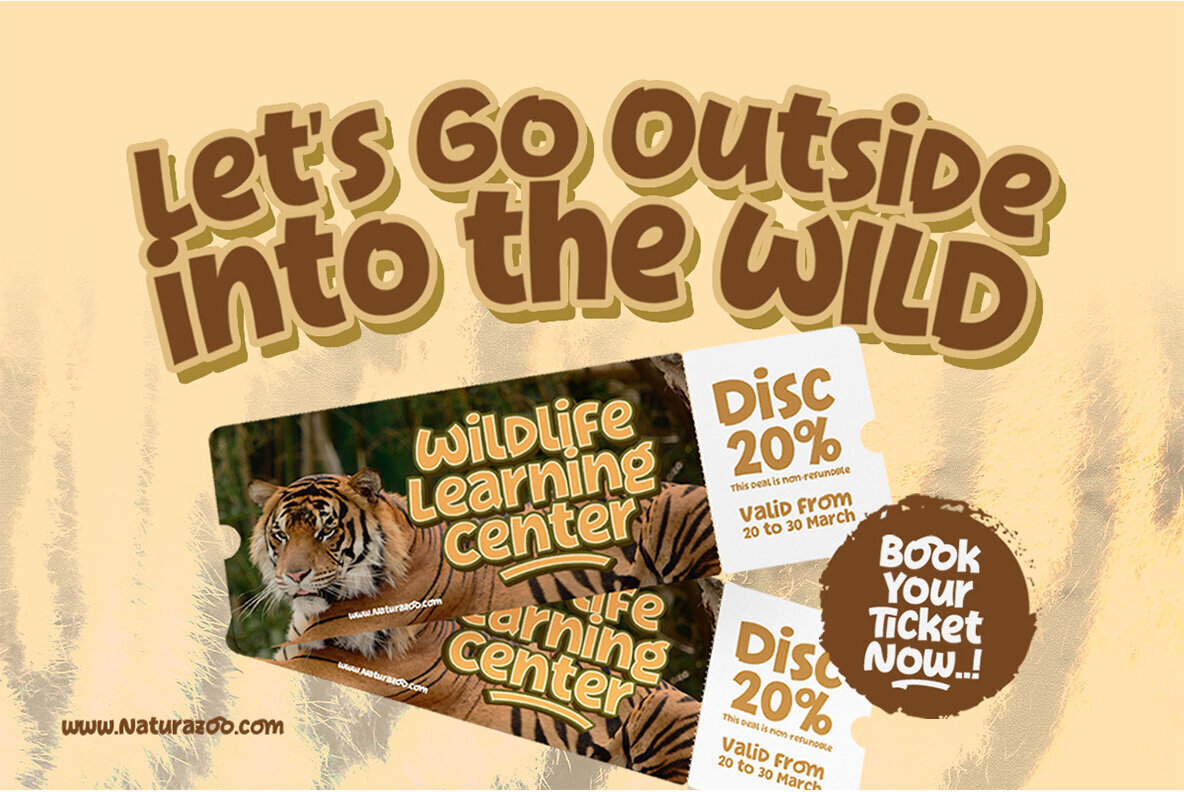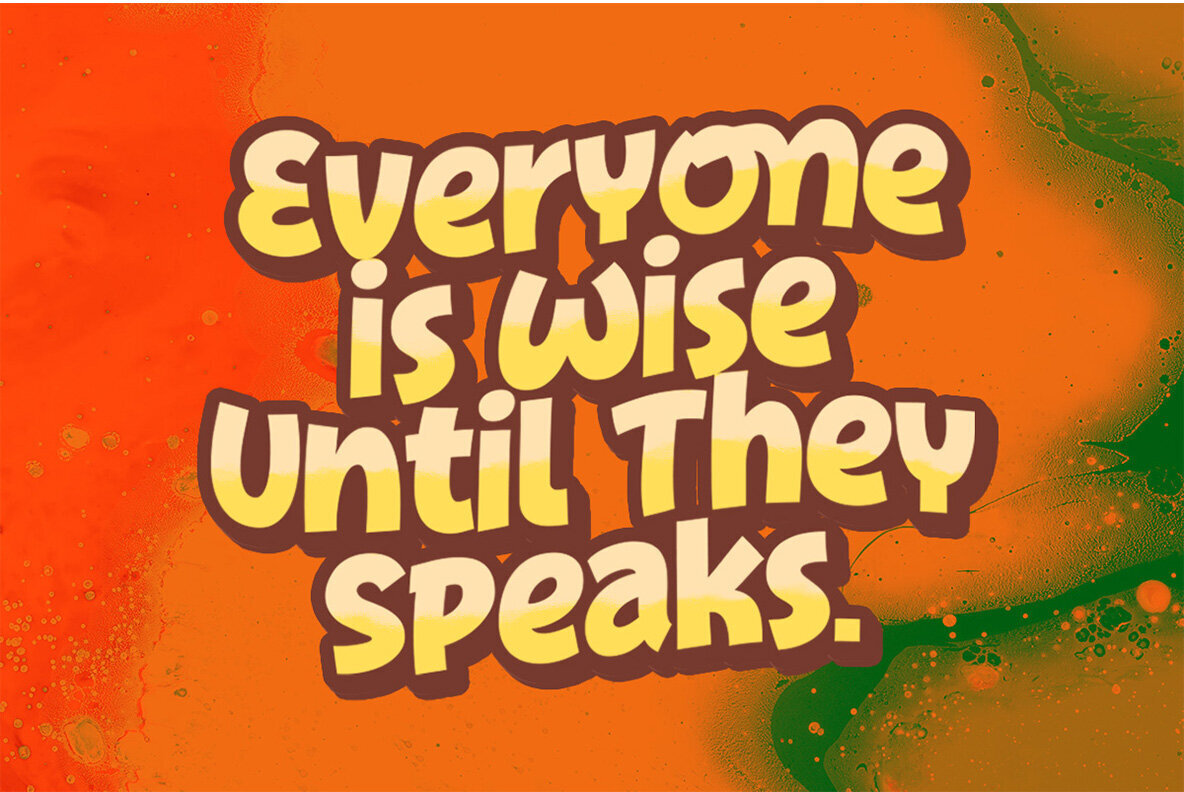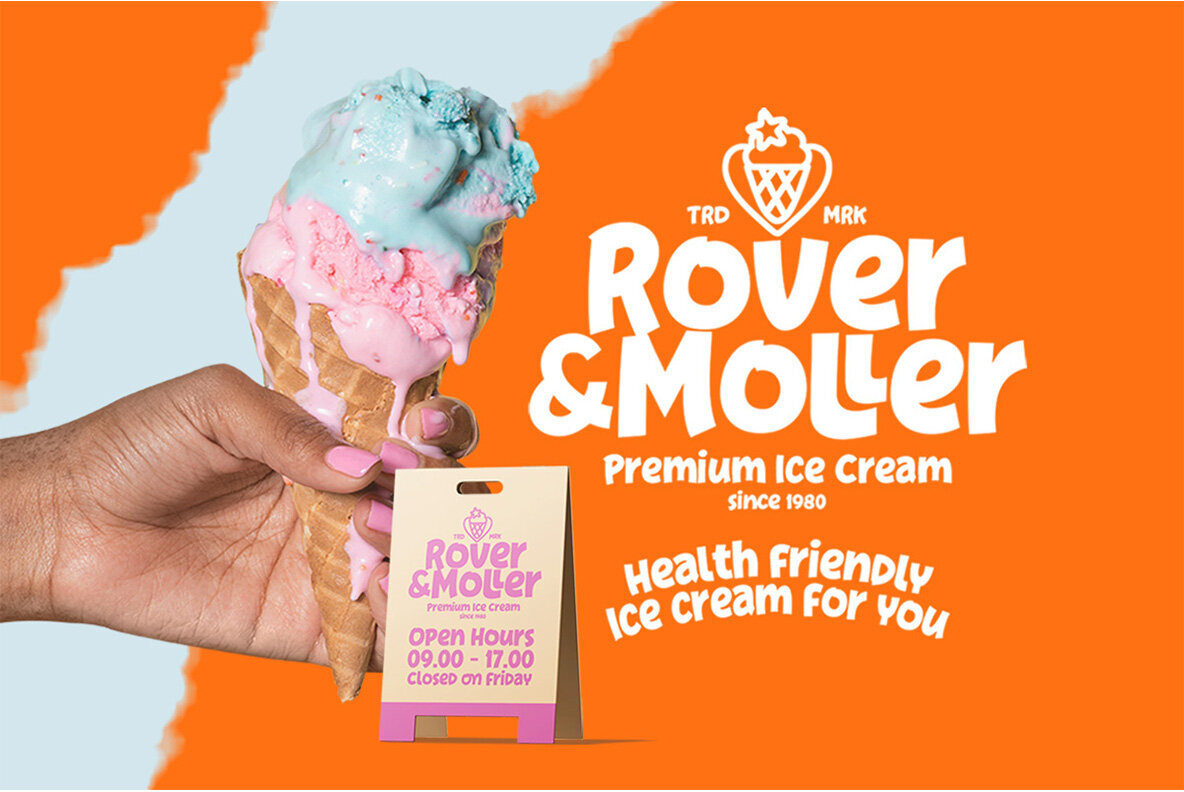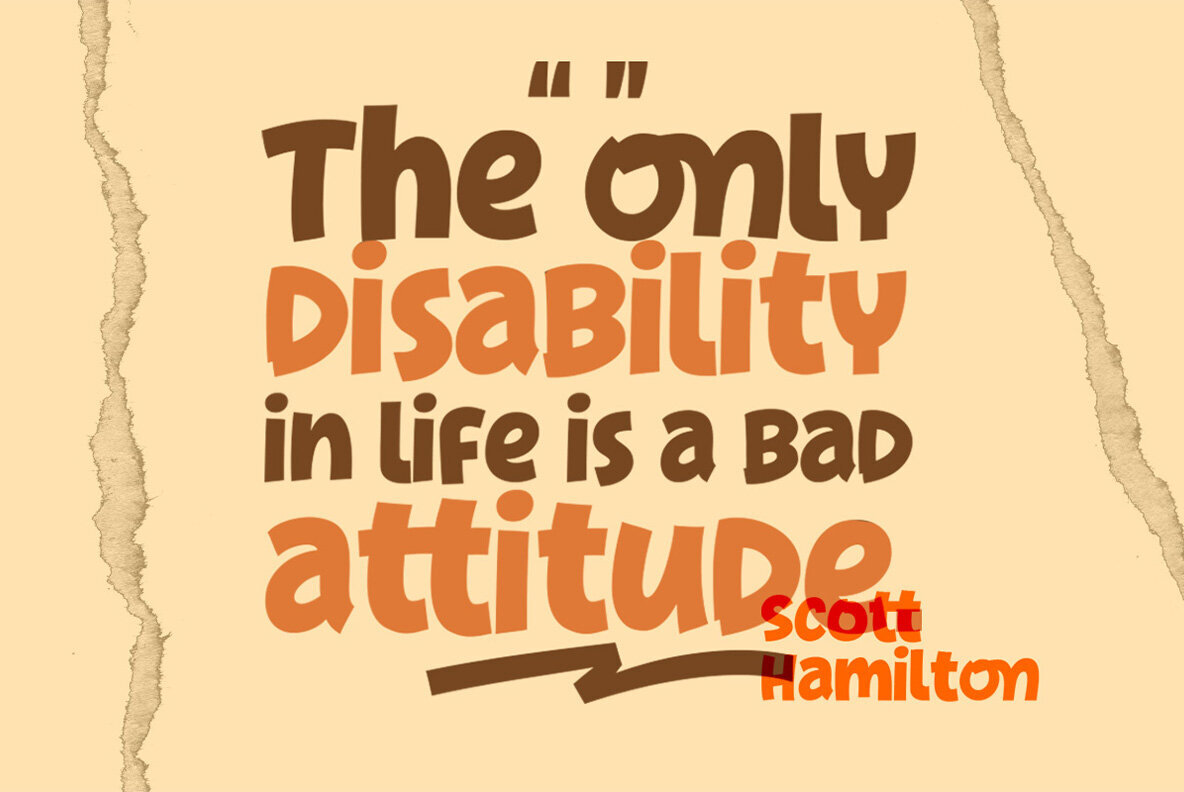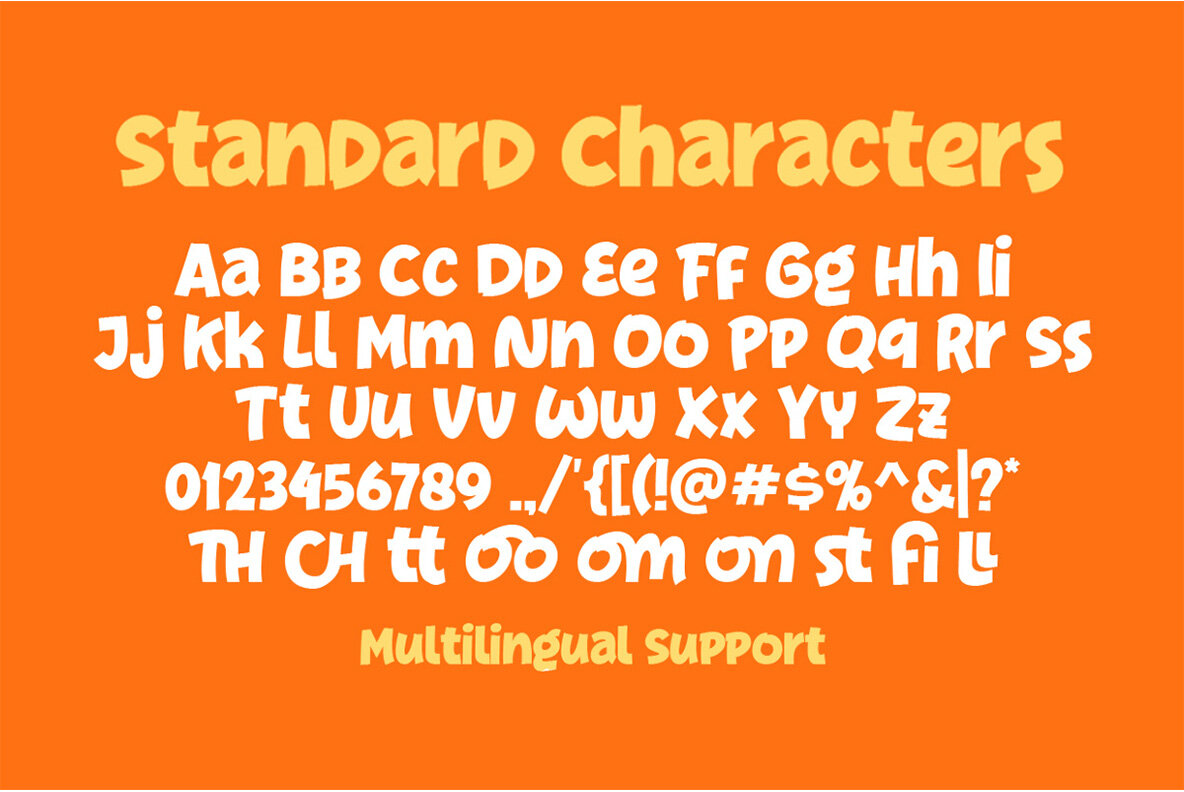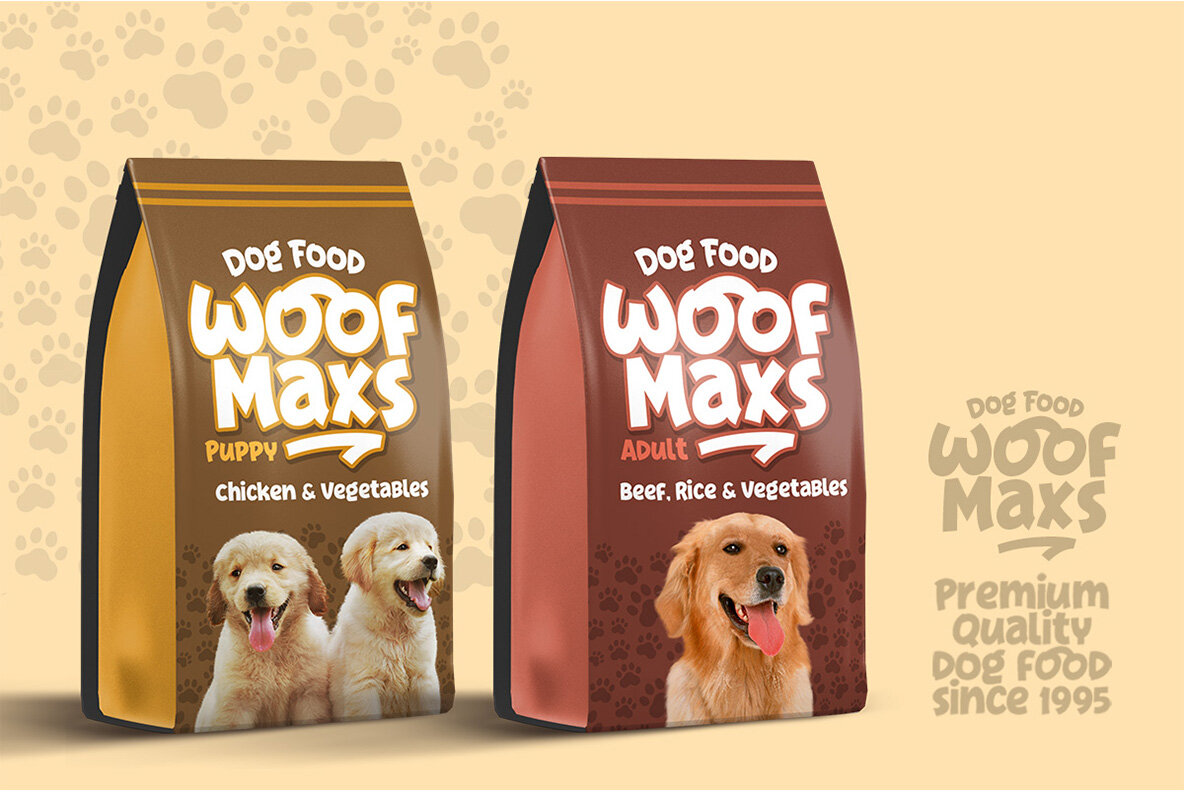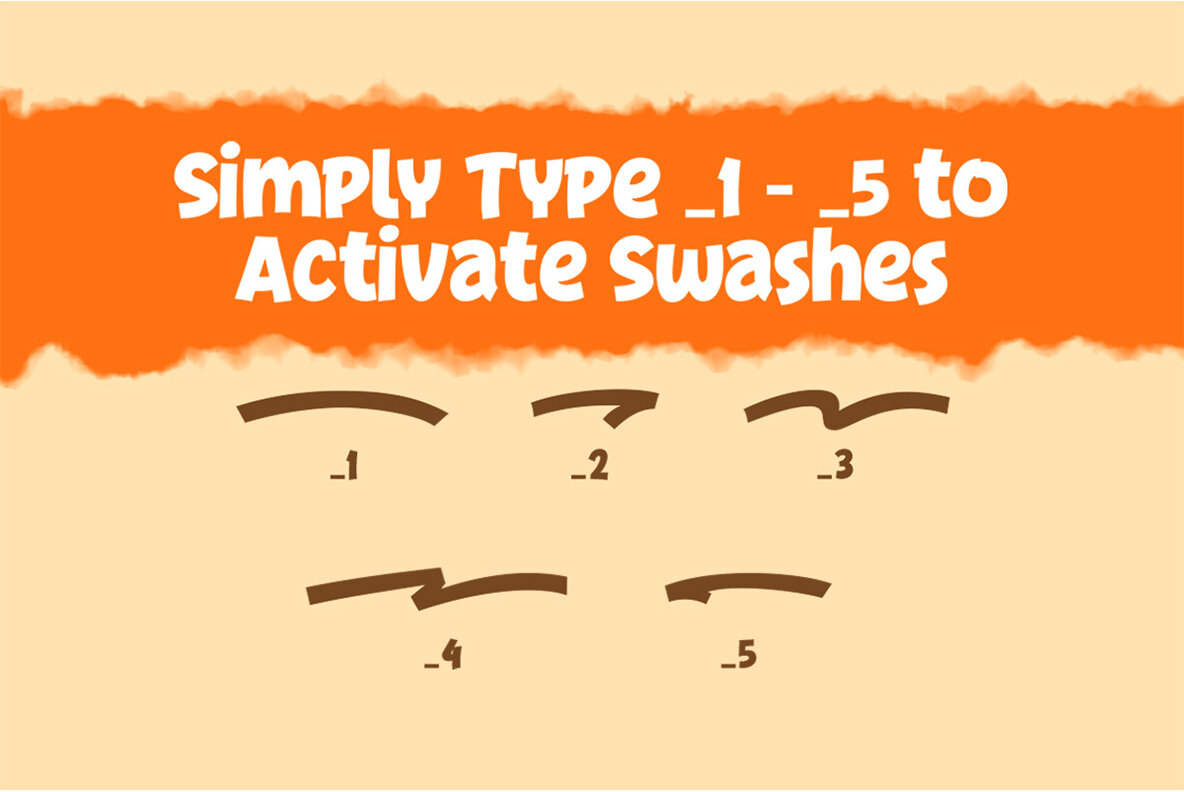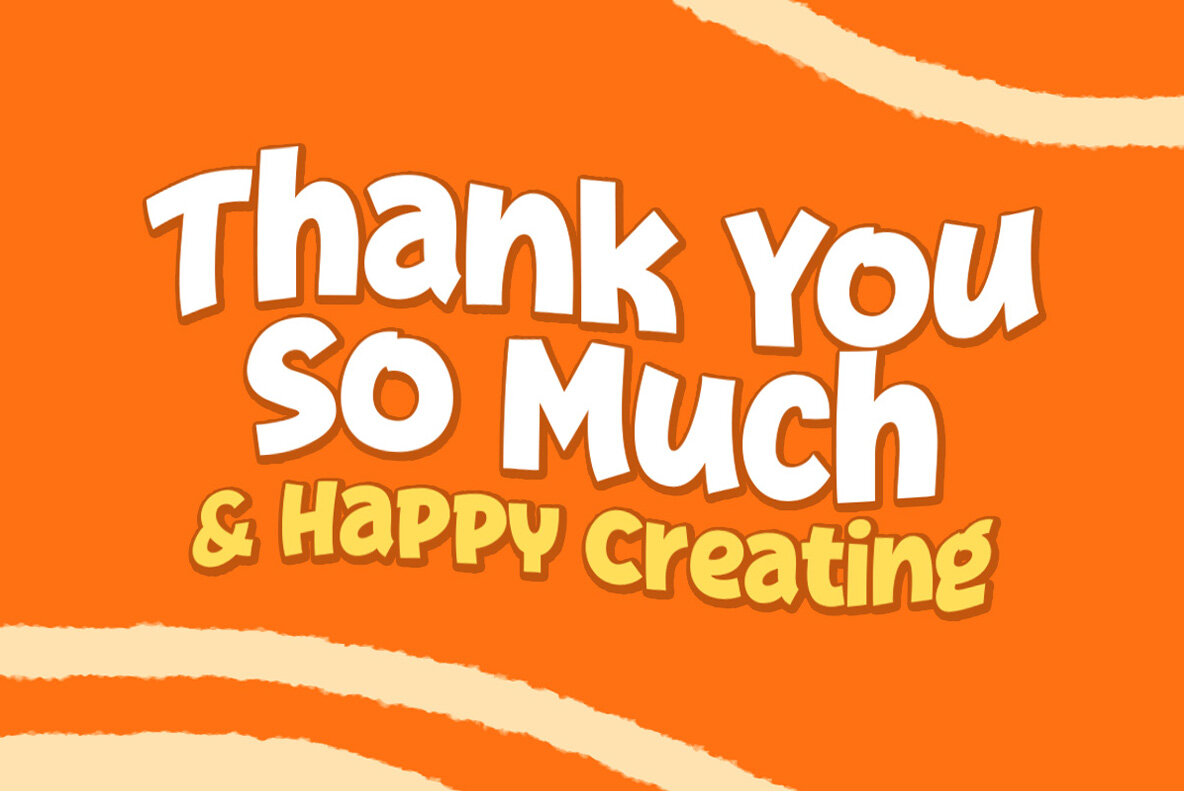
Silver Broom Font
Silver Broom Regular
Introducing a whimsical font that captures the essence of youthful imagination—Silver Broom. Designed by Letterhend Studio, this display font exudes a playful charm, making it ideal for projects centered around storytelling, children's themes, and any design that calls for a lively touch. Beyond its childlike appeal, Silver Broom's versatility extends to formal applications such as invitations, logos, magazine headers, and packaging. Its delightful character makes it suitable for a range of creative endeavors, from greeting cards and fashion to stationery and advertising.Silver Broom: Fun Display Font for Playful Designs